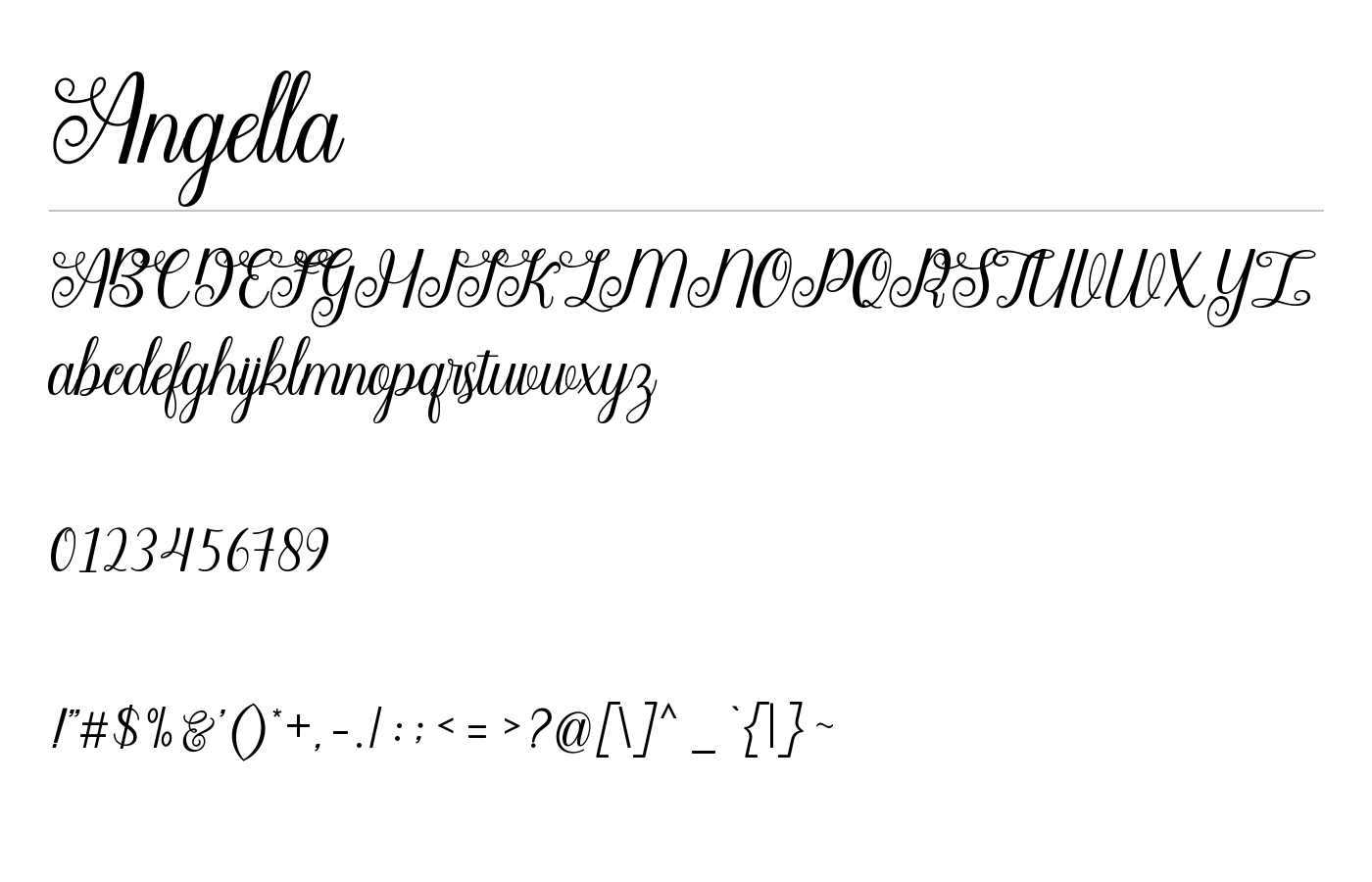
Angella is an elegant script font with graceful, flowing letterforms that combine thin, smooth strokes and delicate swashes, especially in its uppercase characters. It has a refined, sophisticated personality perfect for luxury branding, wedding invitations, and other decorative uses where a stylish and classic handwritten feel is desired. This font works best in headlines, logos, and packaging, adding a touch of charm and sophistication to any design.
Angella Font